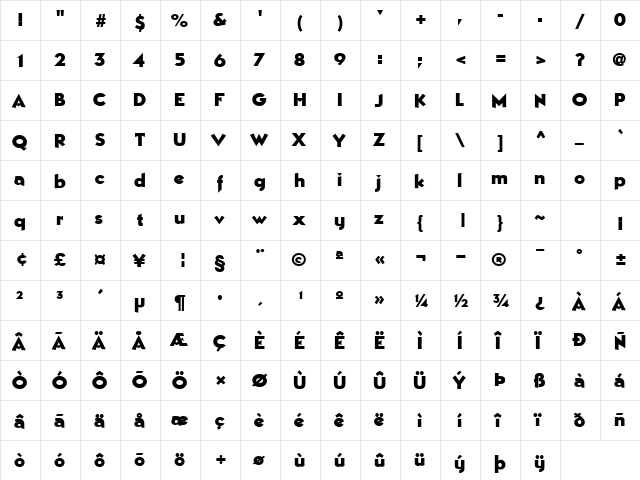
BestSevenFont77 Bold
Design Context for BestSevenFont77 Typeface
BestSevenFont77 is a composed and adaptable typeface that performs quietly and consistently across a wide range of design contexts. Its bold stroke weight gives it real presence on the page.
Pro Tip: Pair BestSevenFont77 with a font of contrasting weight or personality to build a more expressive typographic hierarchy.